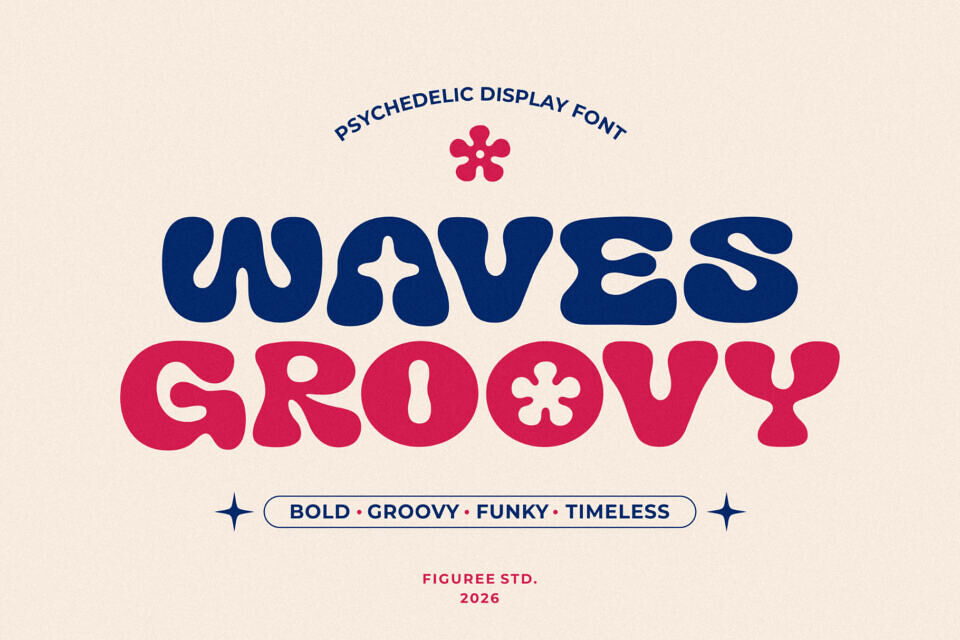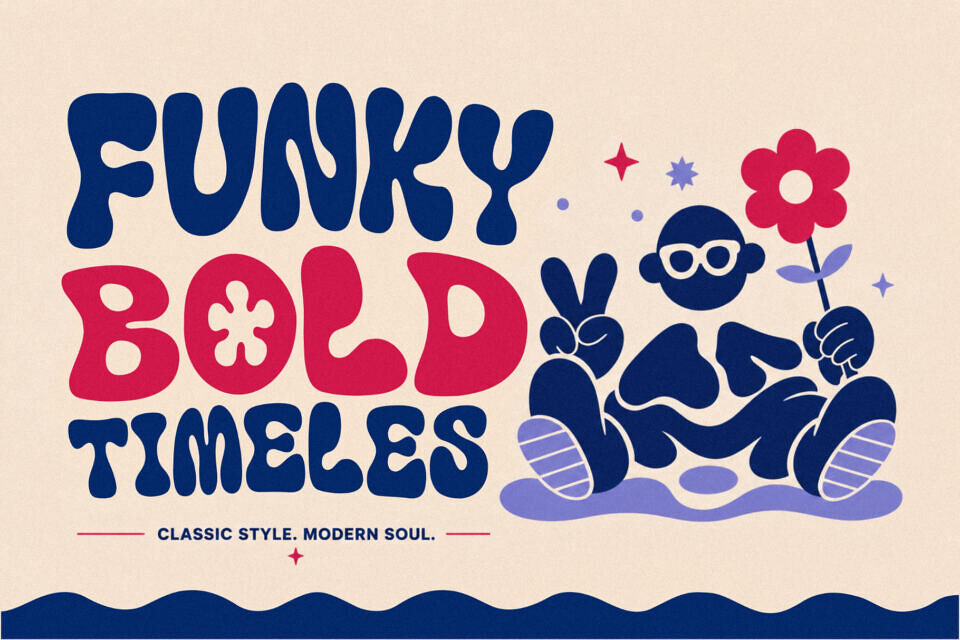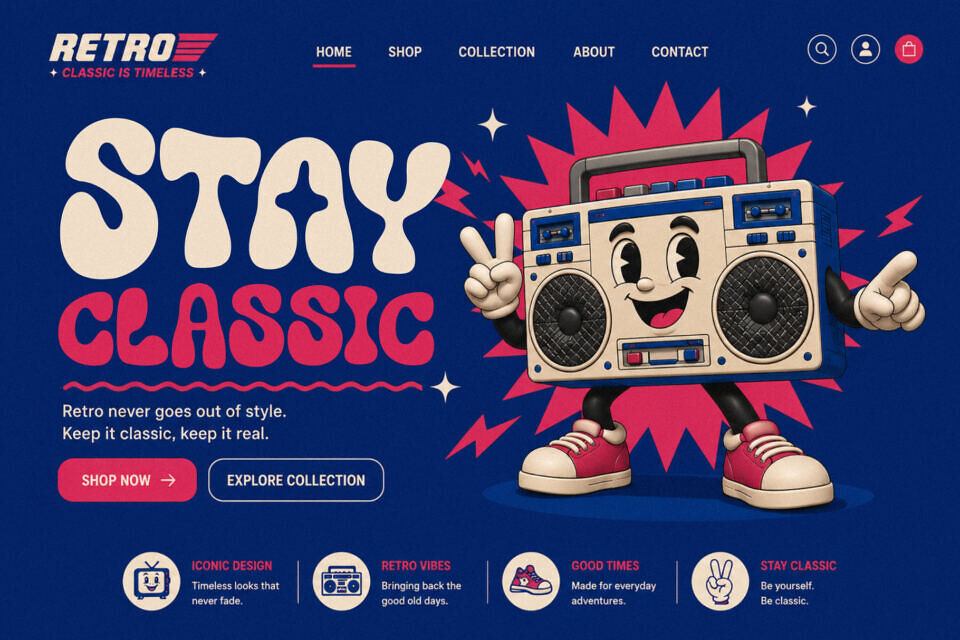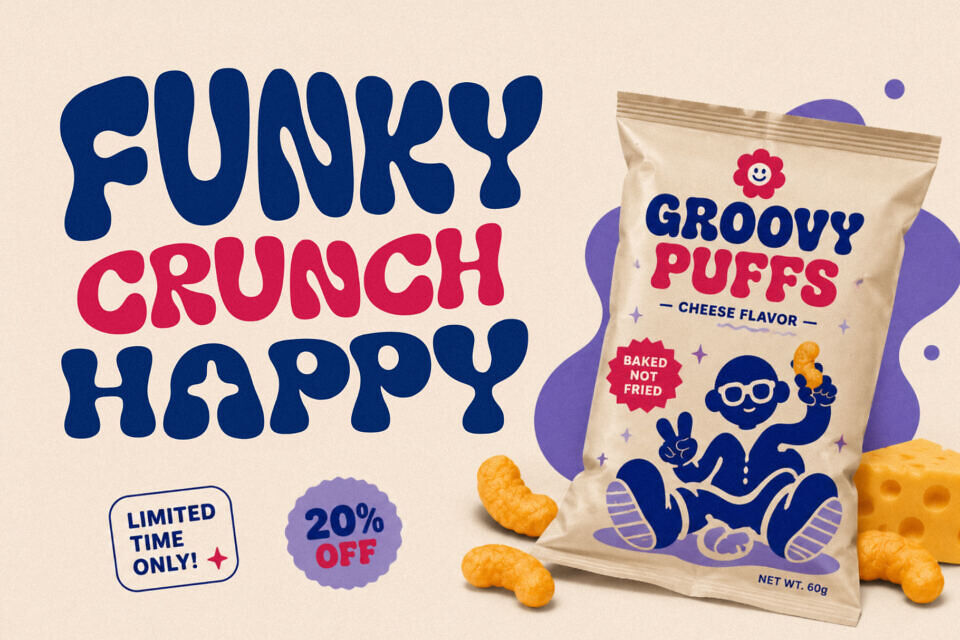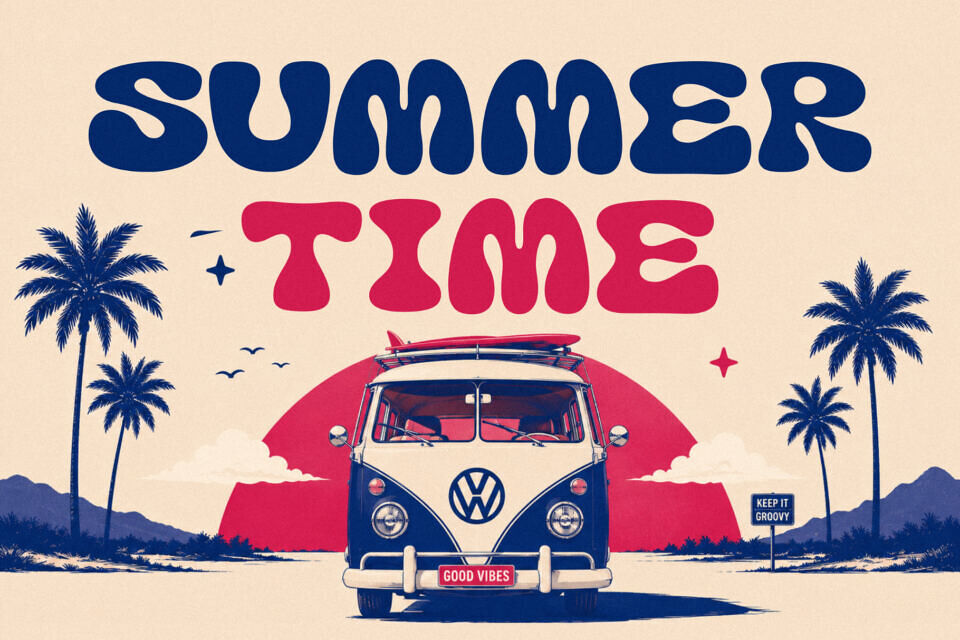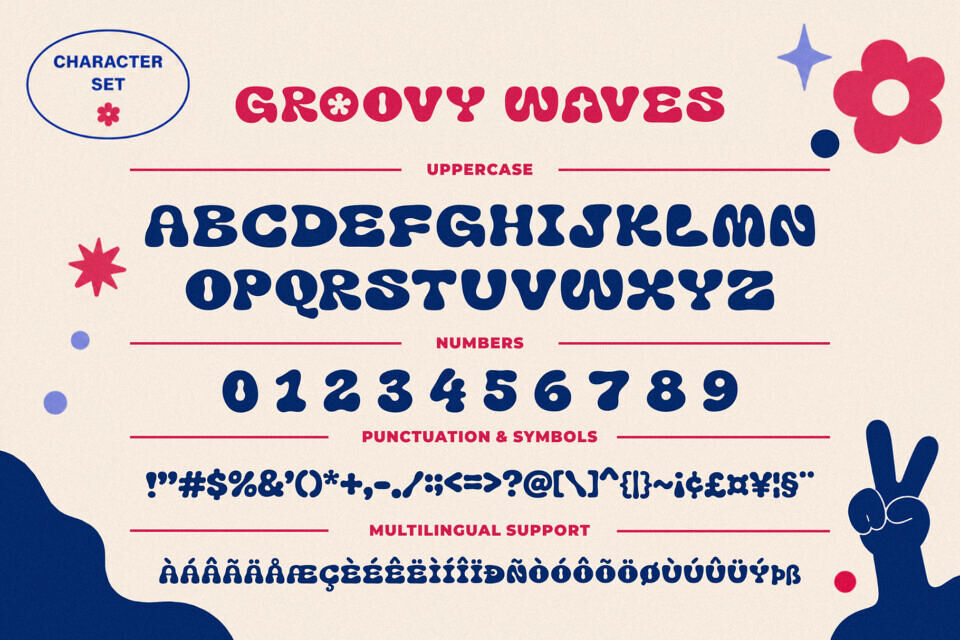
Groovy Waves Font
Bring bold retro energy into your projects with Groovy Waves, a Psychedelic Retro Font. Inspired by vintage psychedelic lettering and flowing wave-shaped typography, this font is designed to create eye-catching visuals with a nostalgic retro atmosphere. Its playful curves and distorted letterforms instantly add movement and character to any layout.
Groovy Waves is built for creative projects that need a strong visual identity. From posters and music event graphics to album covers, packaging, social media content, and retro-themed branding, this font helps your typography become the center of attention.